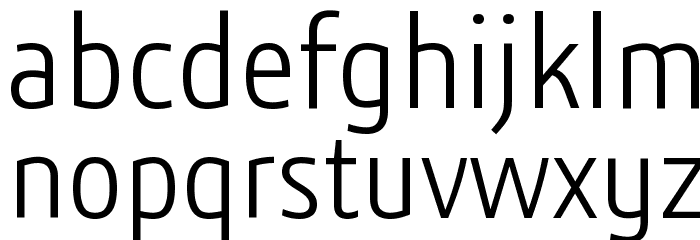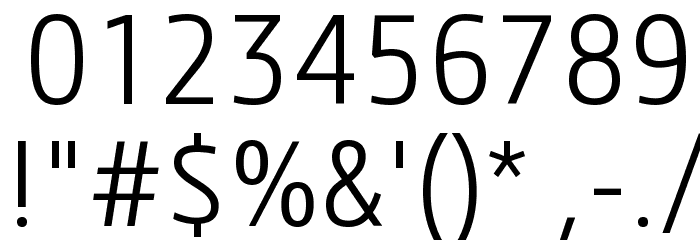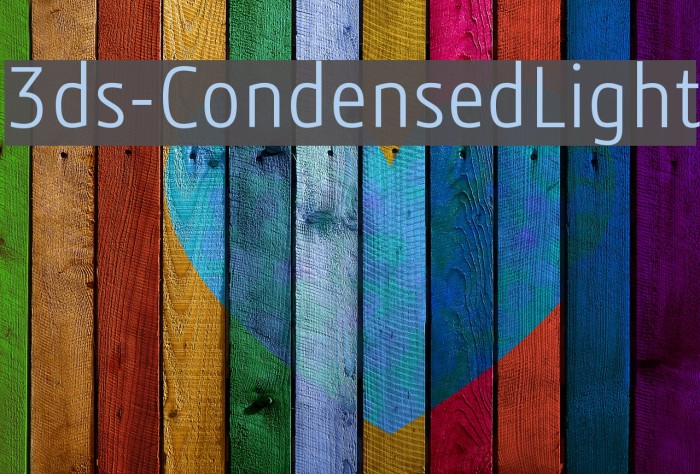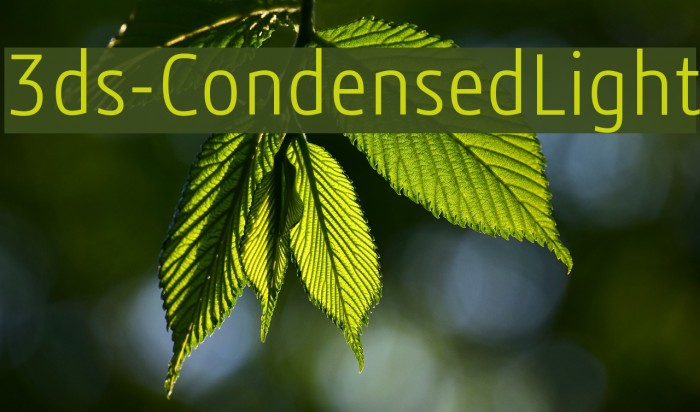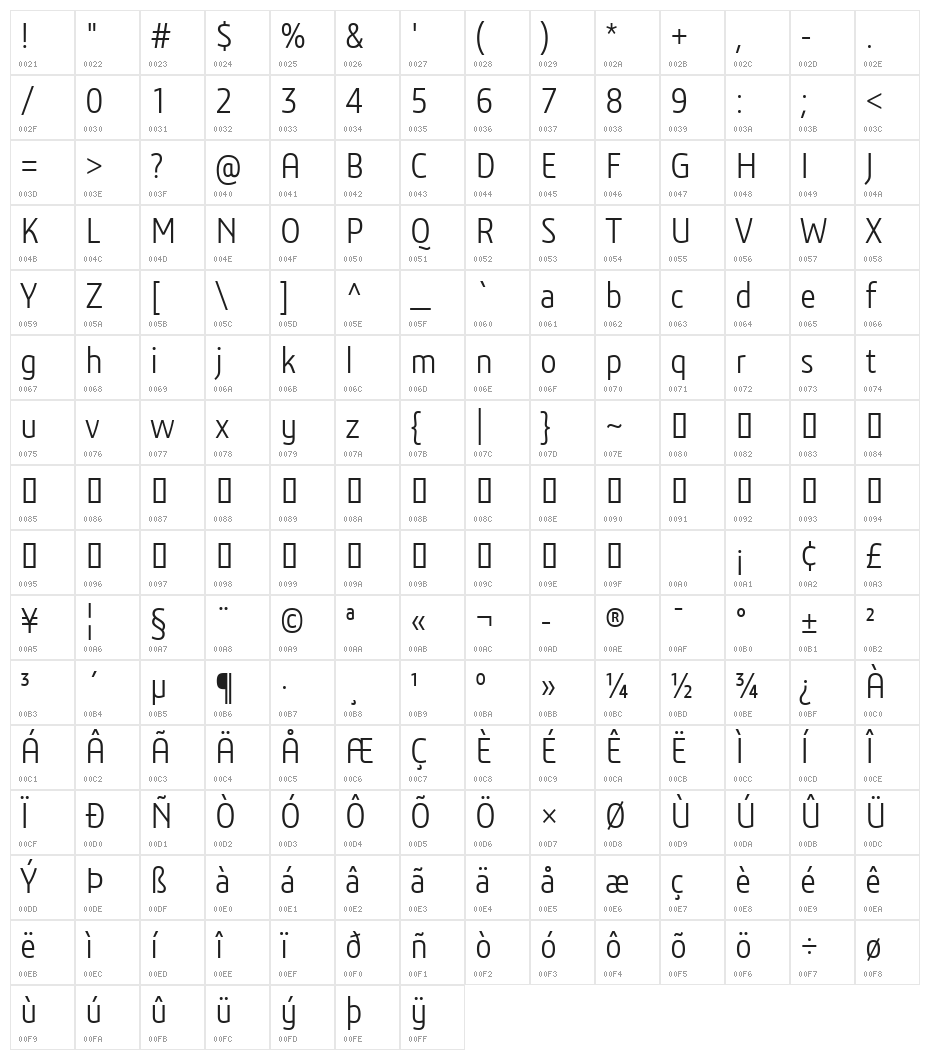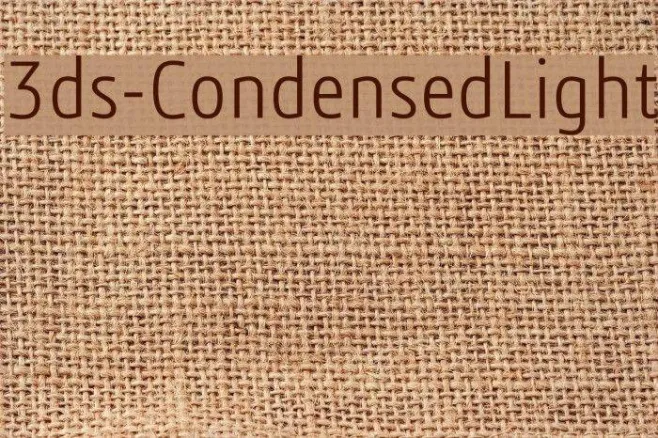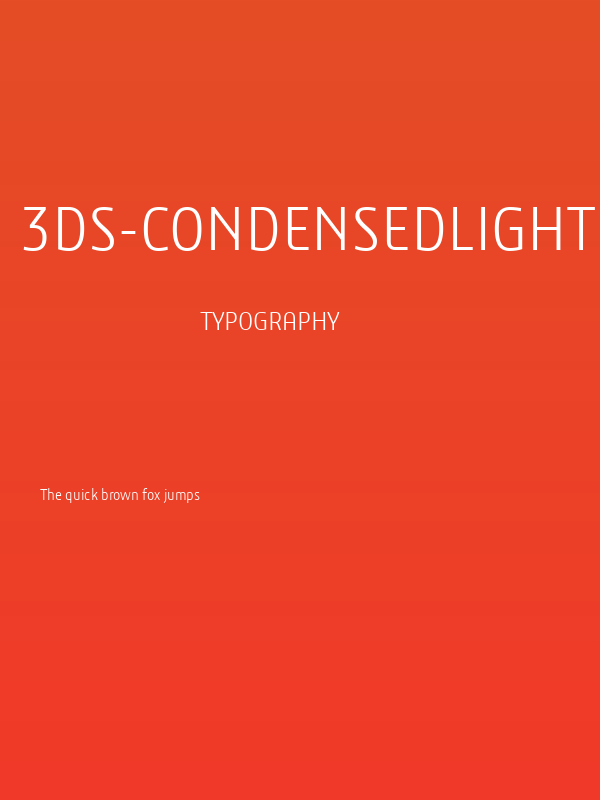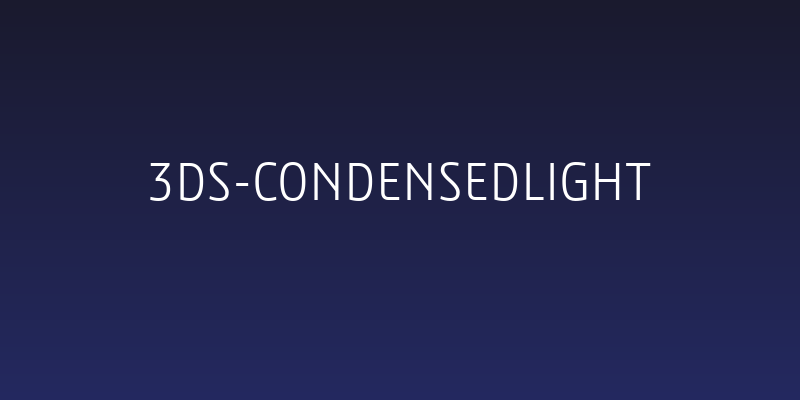
3ds-CondensedLight Font
This font features a clean and modern design with a condensed structure, making it ideal for space-saving applications. The characters are uniformly narrow, providing a sleek and efficient appearance. The strokes are consistent and smooth, with minimal contrast, contributing to a streamlined and contemporary look. The font maintains excellent readability despite its condensed form, making it suitable for both digital and print media. Its geometric shapes and sharp edges give it a professional and polished feel, perfect for projects that require a modern touch.
A modern, condensed font with a sleek and efficient design.
- Proposed Projects: Ideal for use in branding, advertising, headlines, and digital interfaces where space is limited.
- Use Case: Headlines, Logos, Digital interfaces